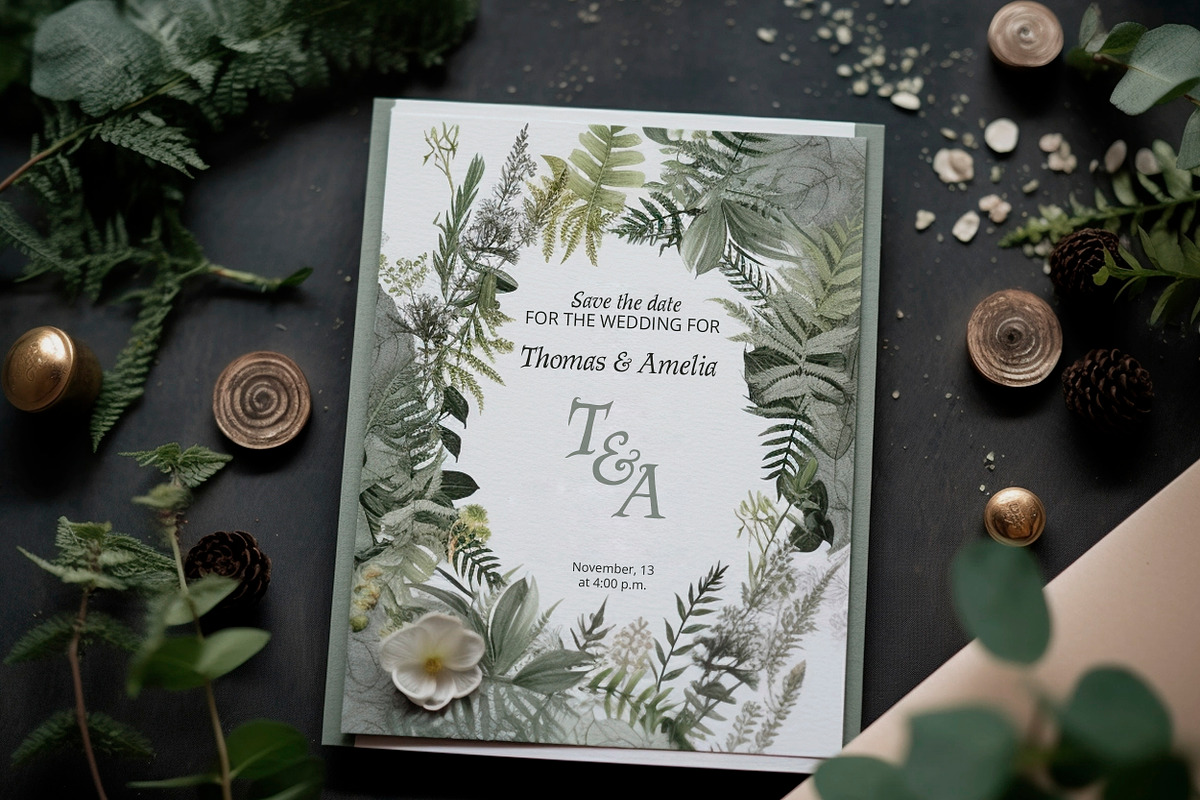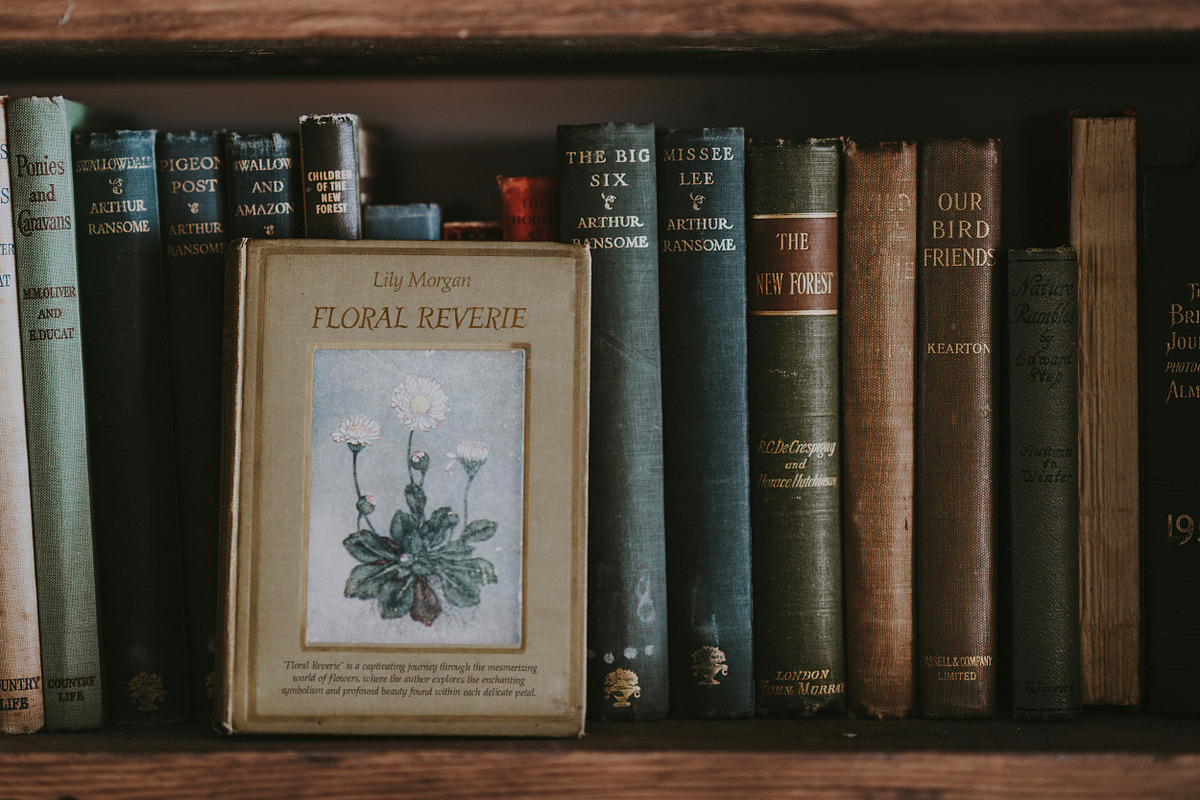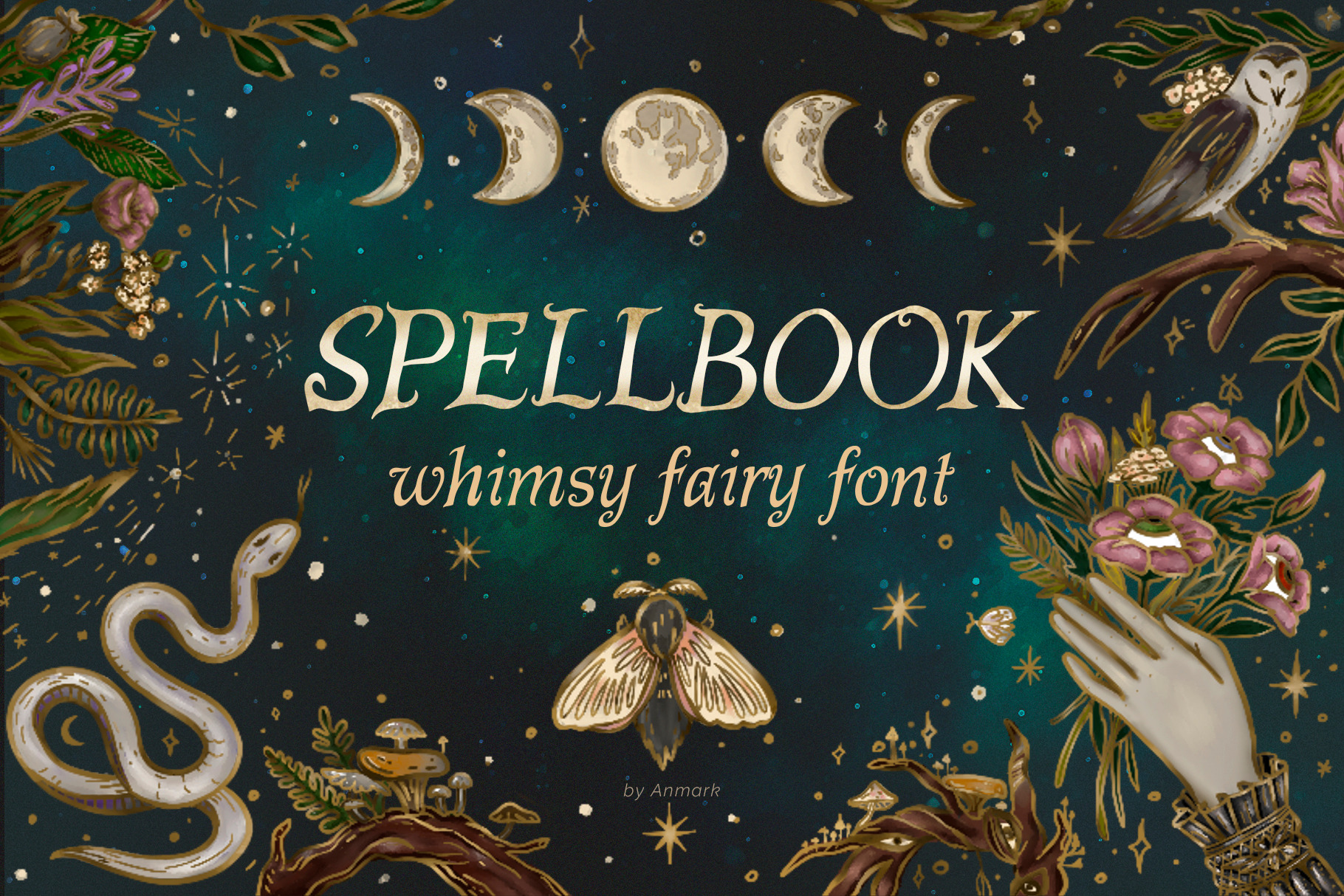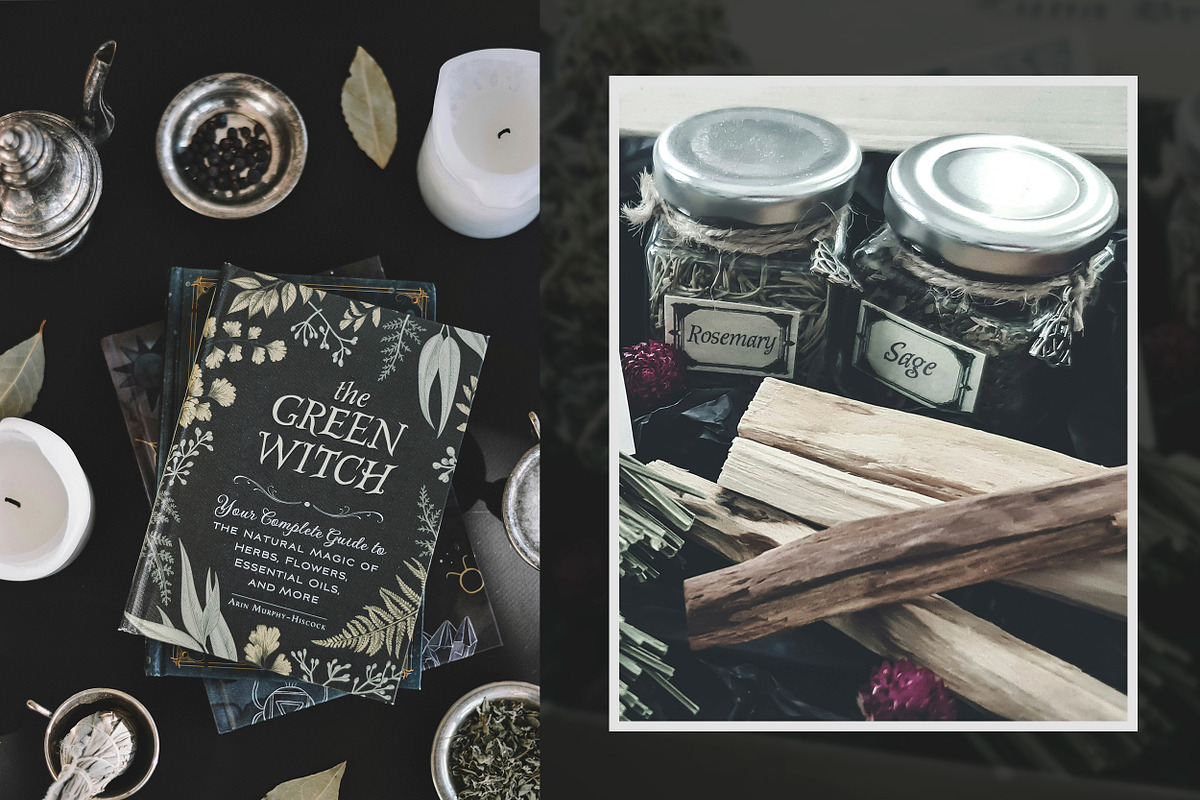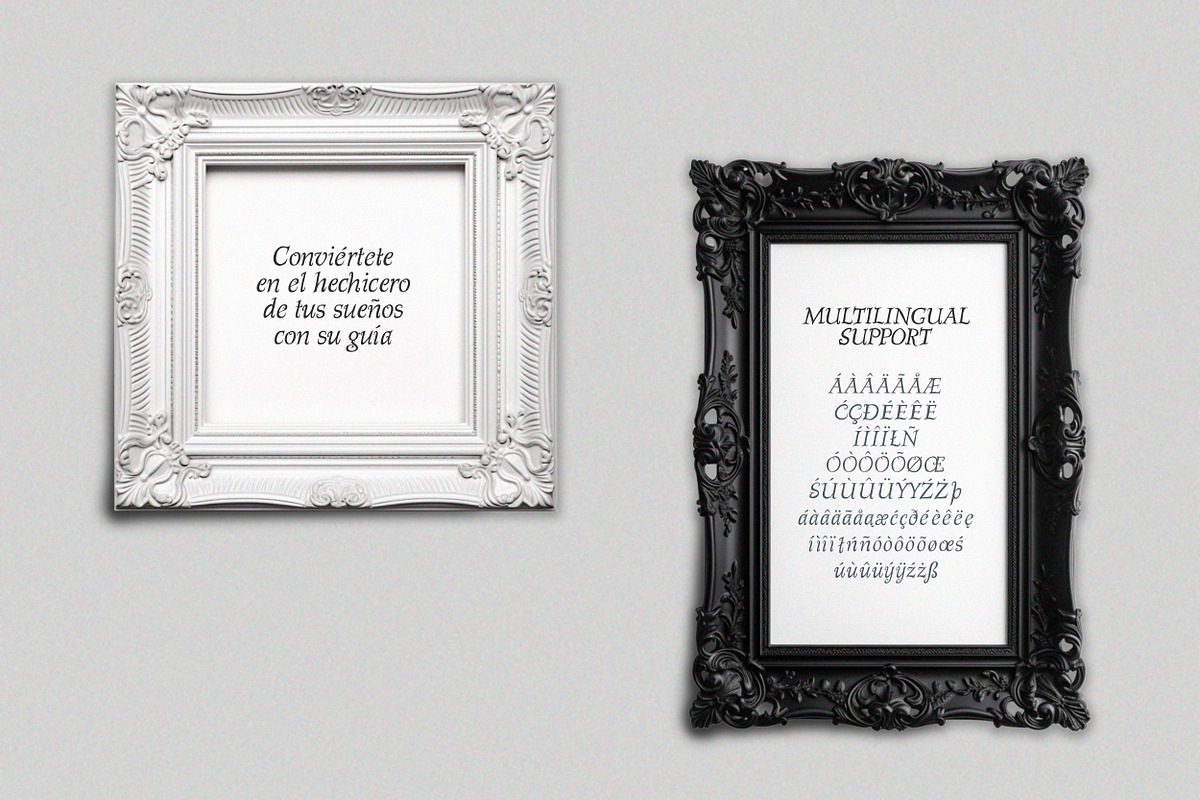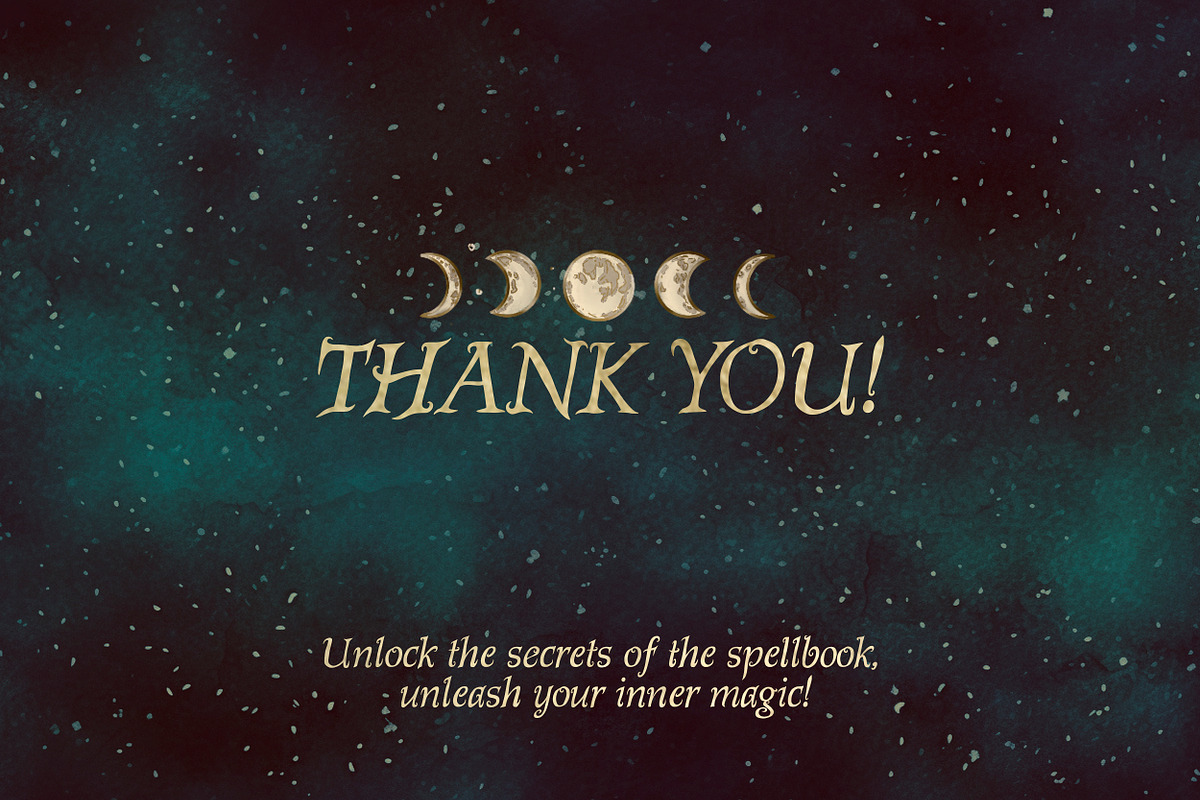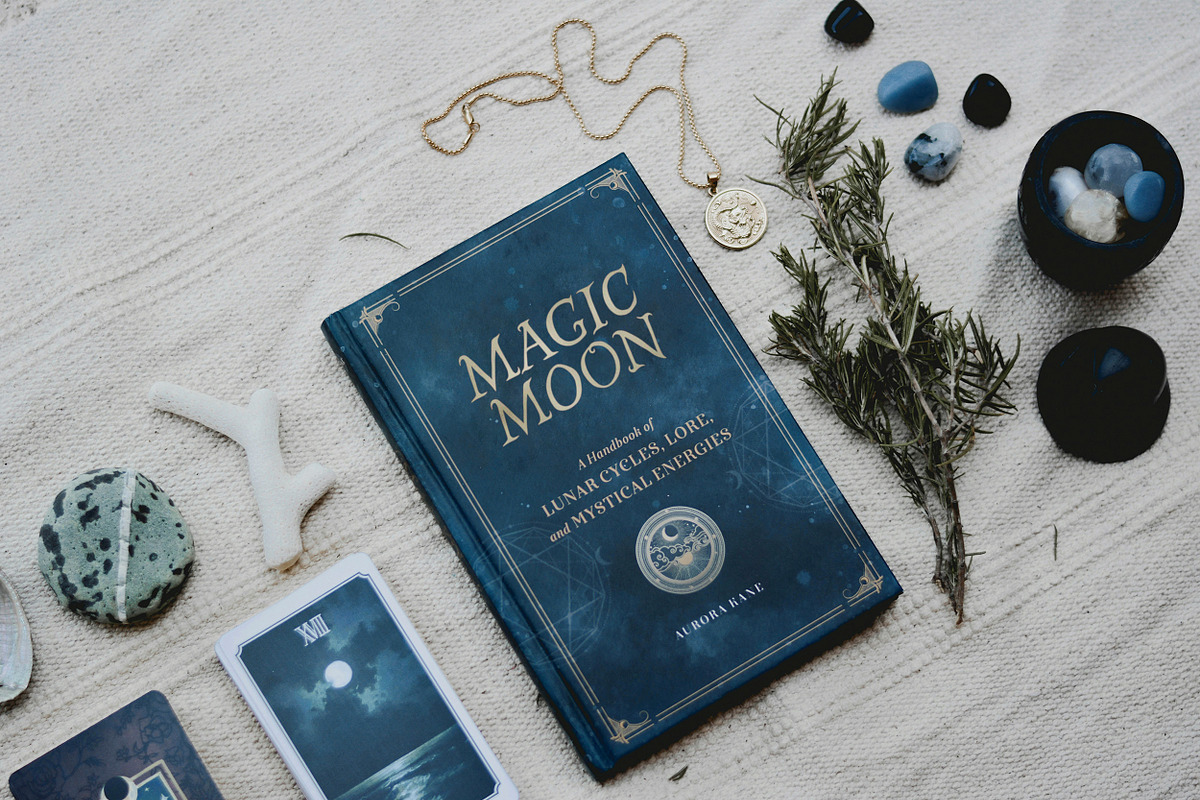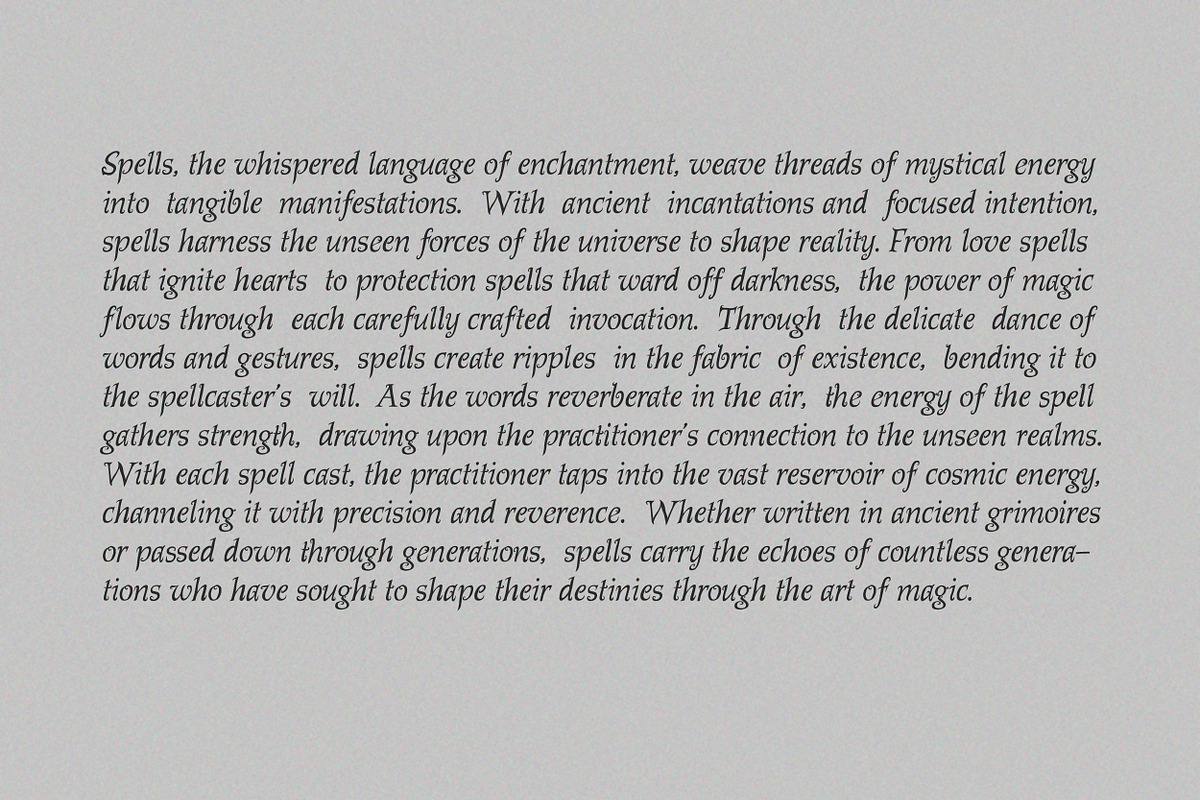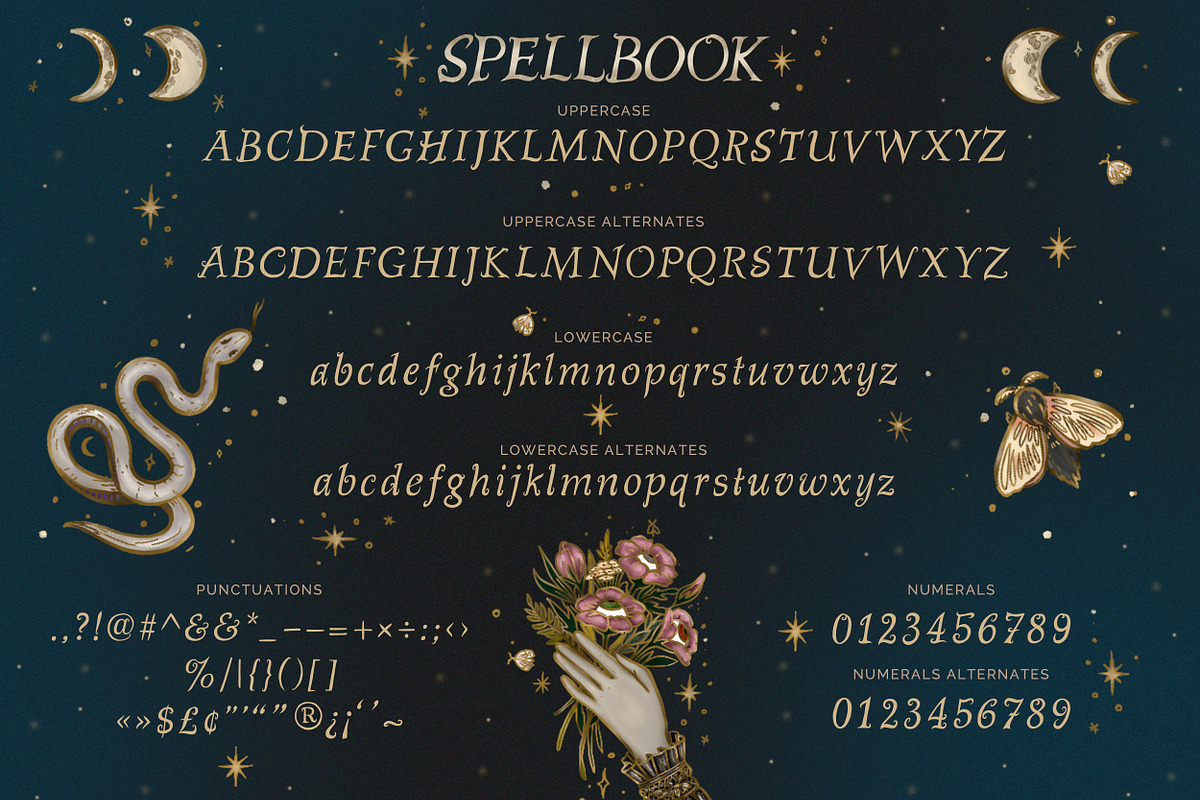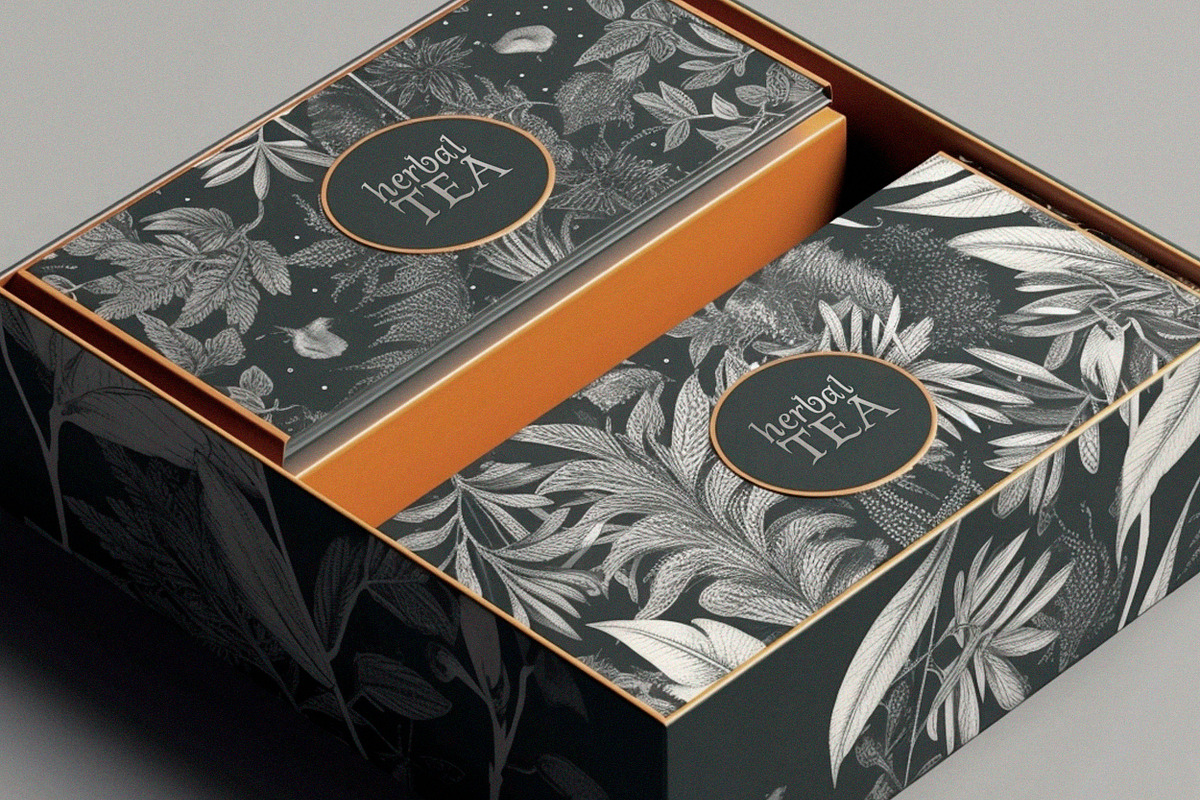
Introducing Spellbook, a whimsical serif font that transports you into the enchanting world of fairy tales and magic. This handwritten font captures the essence of mystery and wonder, perfect for bringing storybooks and children's tales to life. Its clean and playful design makes it ideal for book covers, tarot cards, children's storybooks, while its versatility lends itself to quotes, journals, invitations, greeting cards, logo and wedding stationery.
This font includes full set of lowercase, uppercase and numerals alternates to make your text as close to a natural as possible.
Spellbook, support Spanish, German, French, Italian, Portuguese, Swedish, Norwegian, Danish, Finnish and other (ÁÀÂÄÃÅÆĆÇÐÉÈÊËÍÌÎÏŁÑÓÒÔÖÕØŒŚÚÙÛÜÝŸŹŻÞáàâäãåąæćçðéèêëęíìîïłńñóòôöõøœś úùûüýÿźżß)
Whether you're crafting a spellbinding fairy tale or adding a touch of enchantment to your project, Spellbook is the perfect companion for all your magical endeavors.
Add a touch of whimsy to your designs with Spellbook, the perfect font for capturing the magic of spells, potions, and all things mystical.